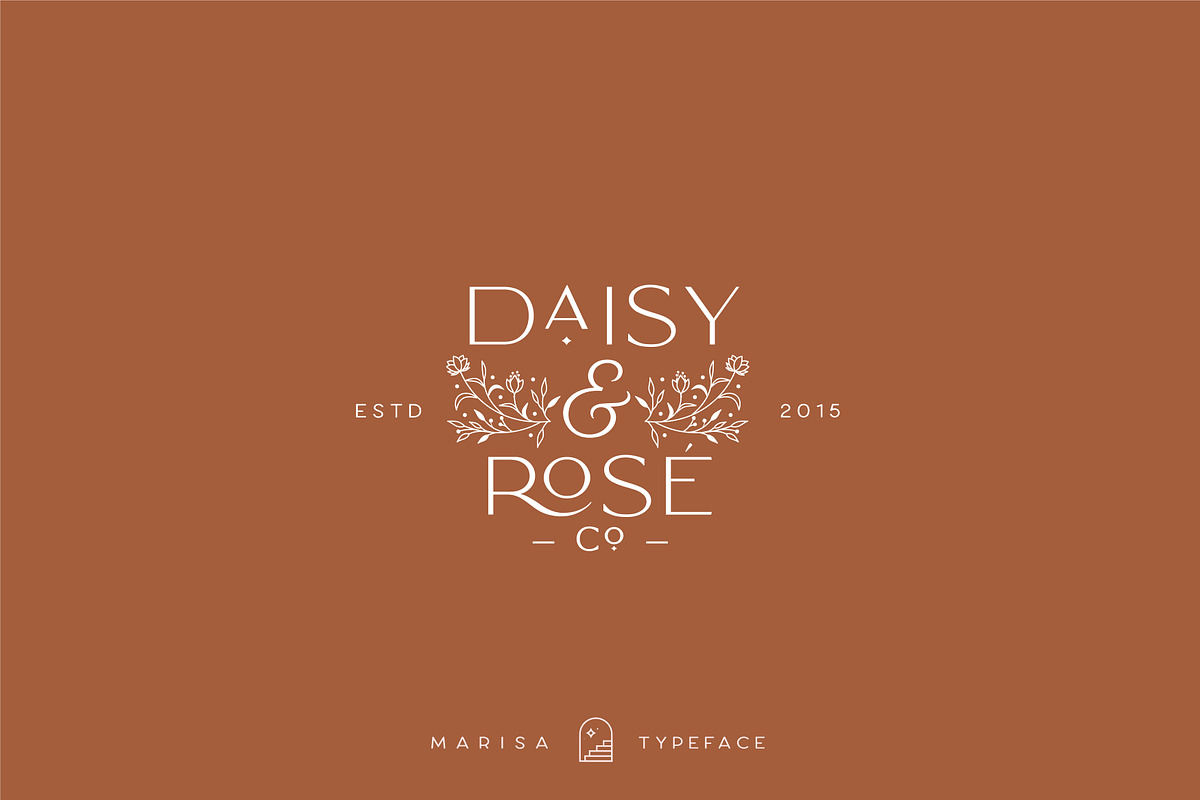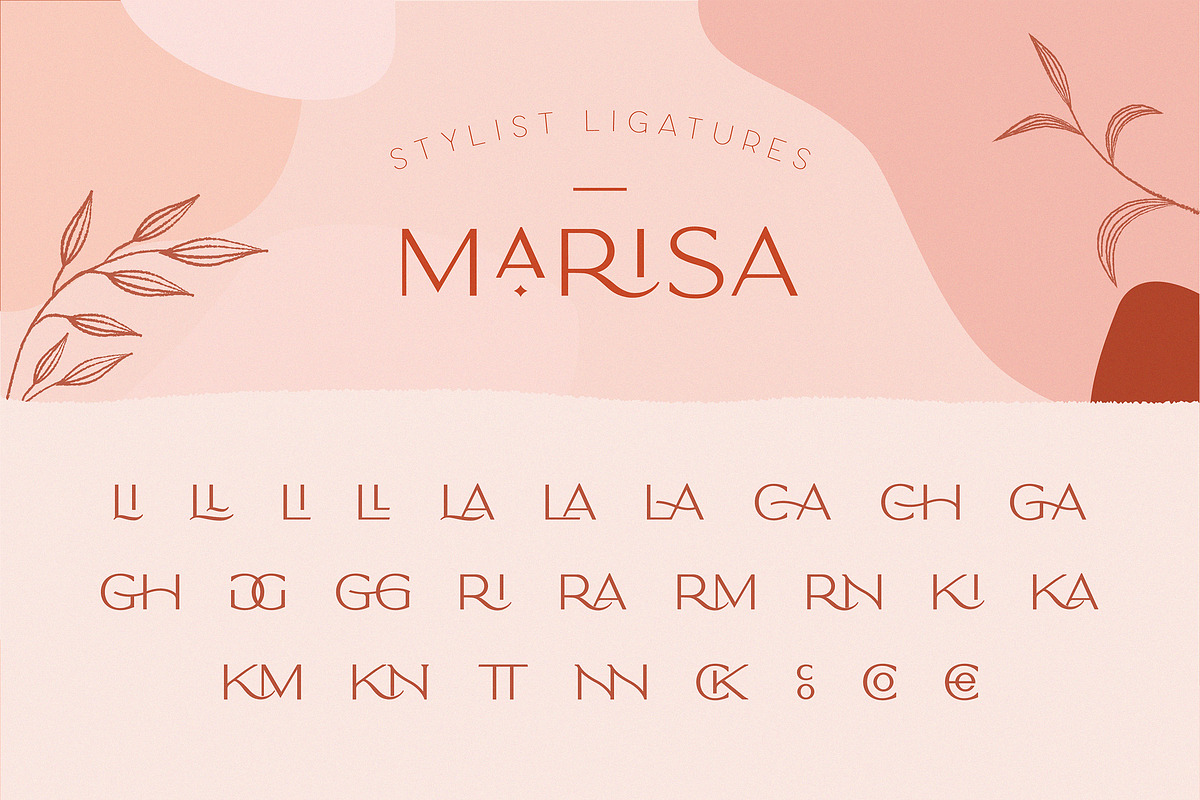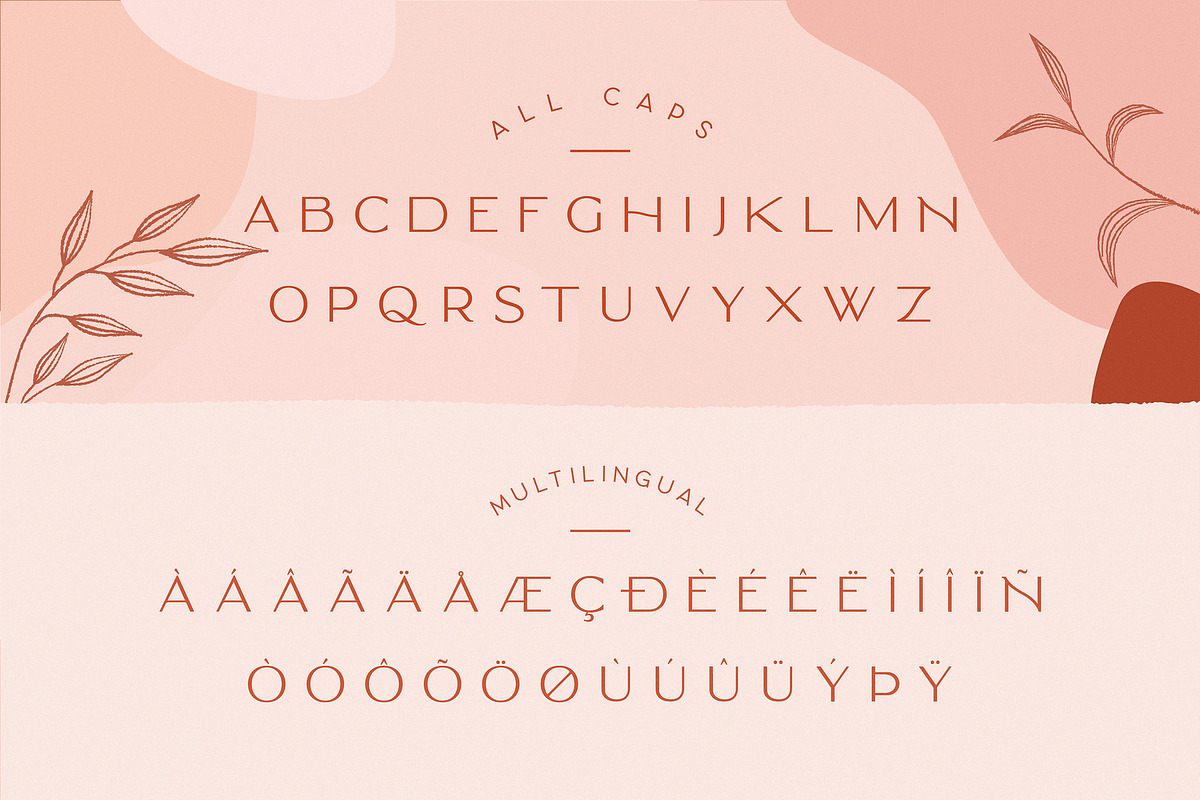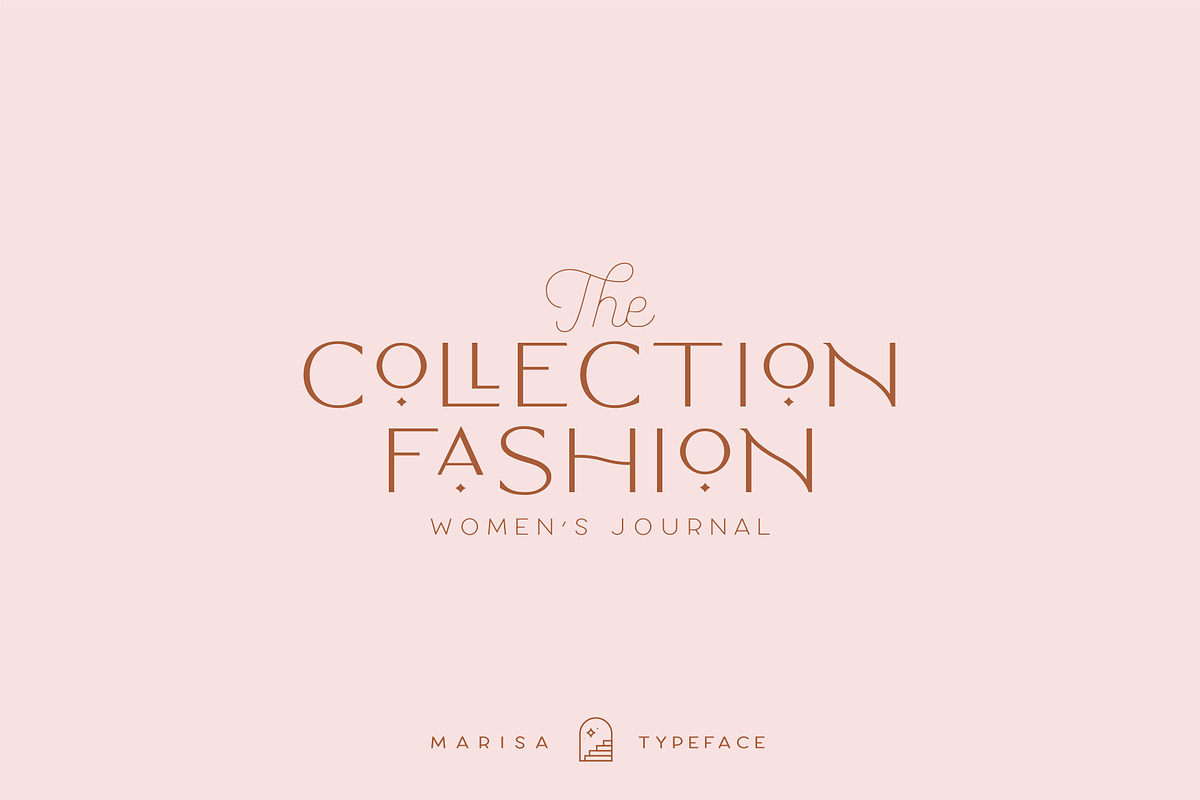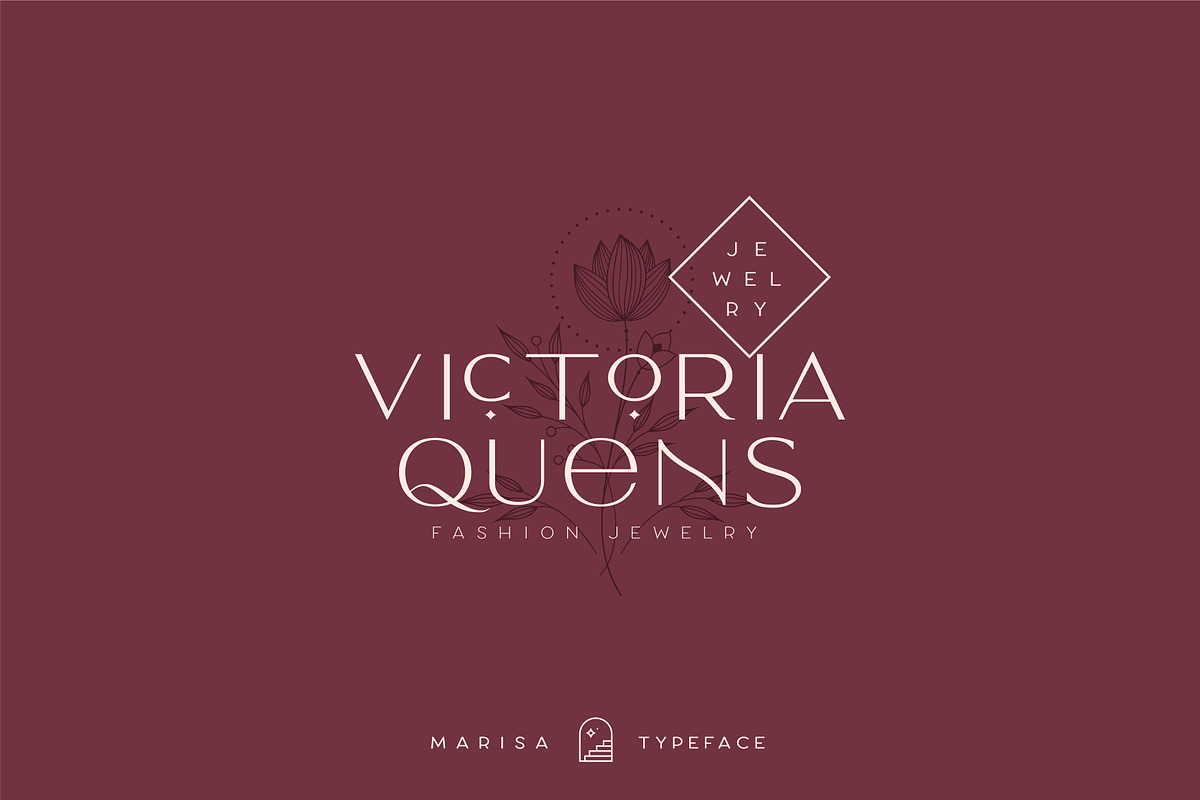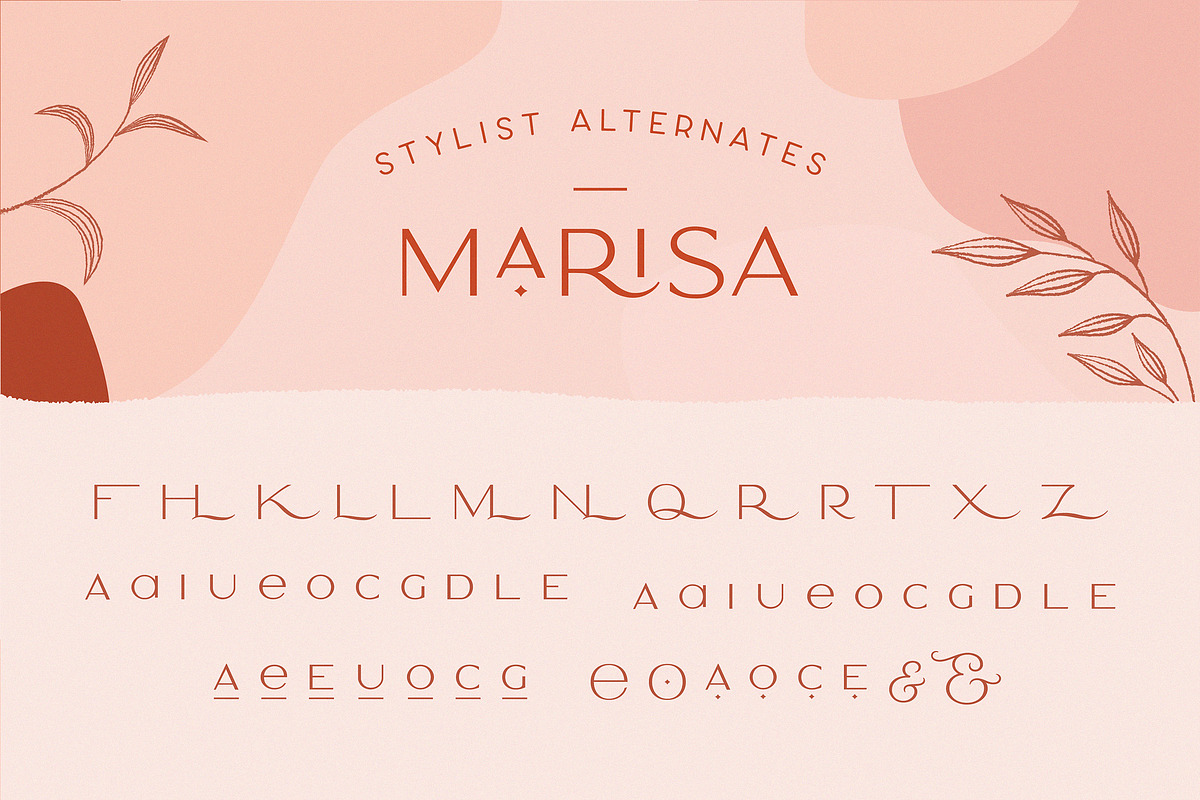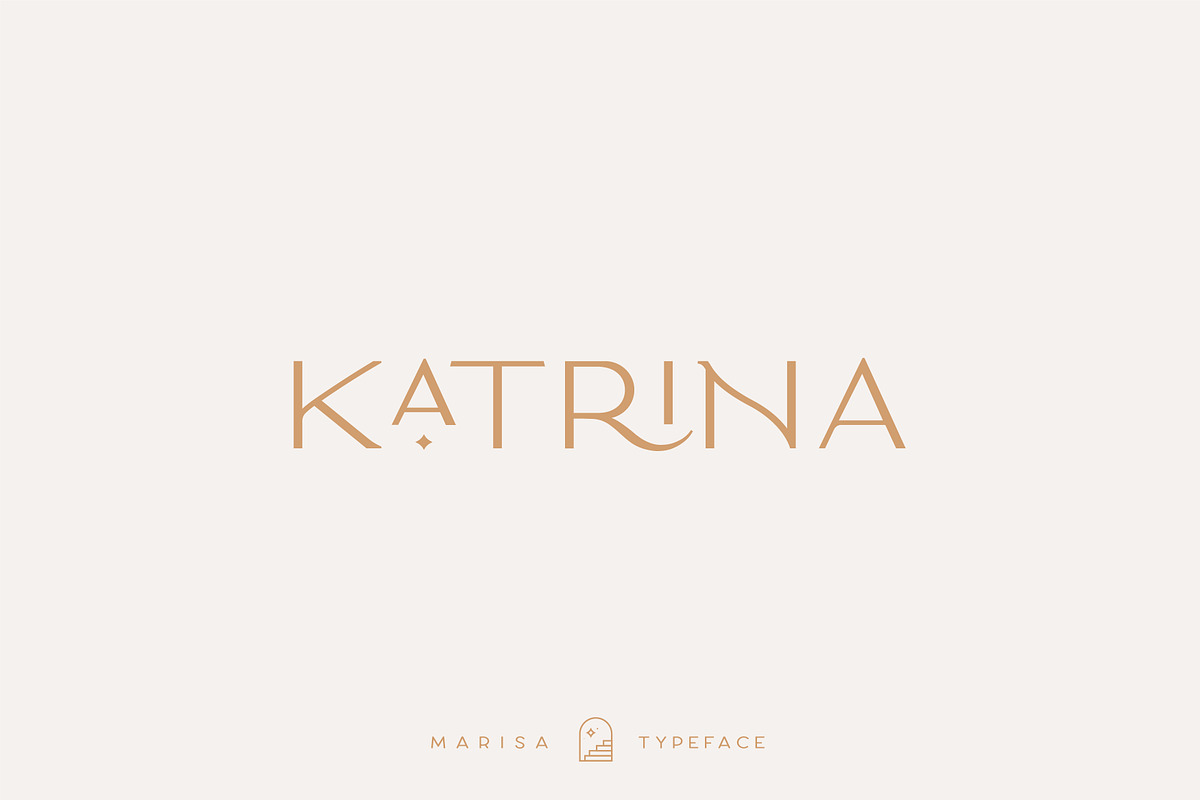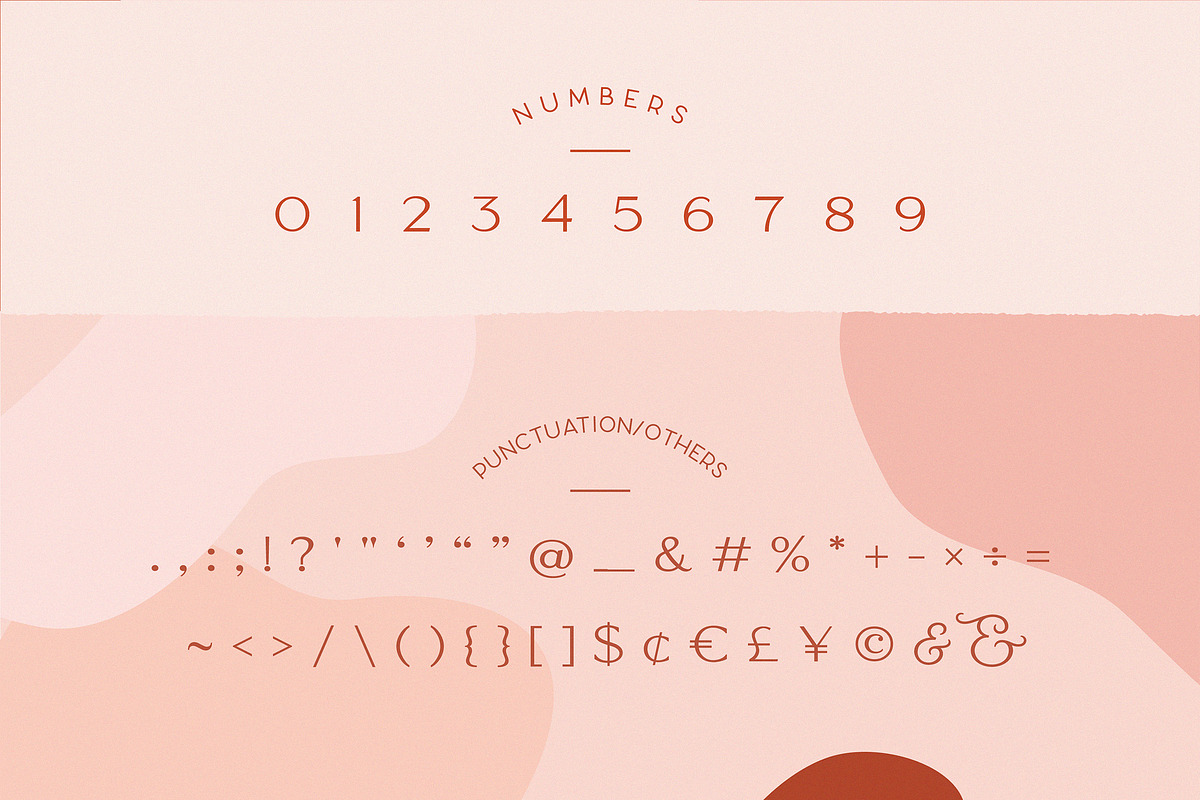
Classy Marisa - Elegant Typeface
Classy Marisa is a Minimalist Modern Elegant vintage font with beautiful ligatures, tons of special alternative glyphs, ornament and multilingual support. It's a very versatile font that works great in large and small sizes. Classy Marisa is perfect for branding projects, Logo design, Clothing Branding, product packaging, magazine headers, or simply as a stylish text overlay to any background image.
All caps
Stylistic Alternates & Ligatures
Accented characters
Multiple Languages Supported
Love this font! Gorgeous with lots of options. Only wish there were more stylist alternatives for each letter.
Beautiful font, but it would be nice to have the "A" with the different flourishes available on their own, not combined with other letters. Just my 2 cents!